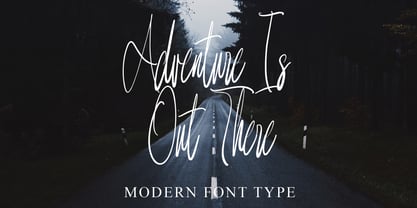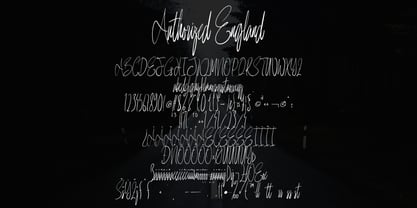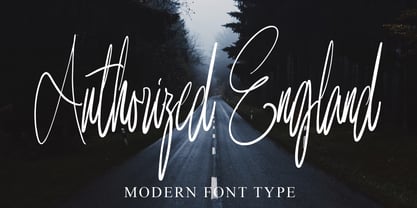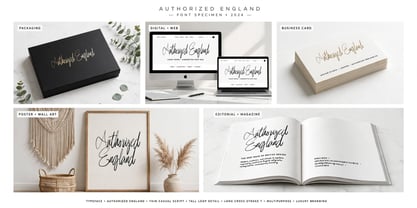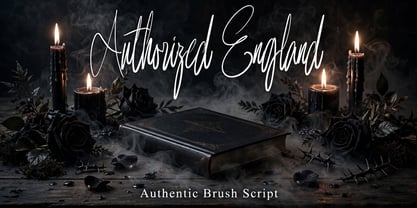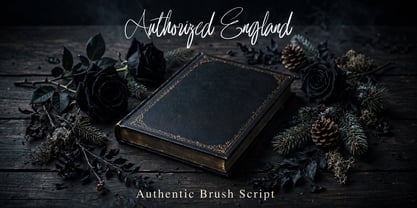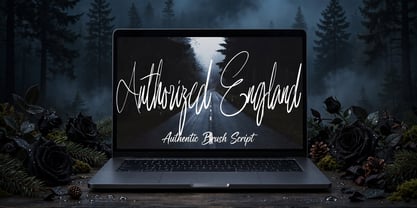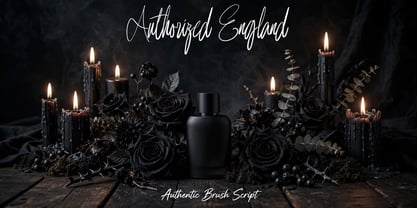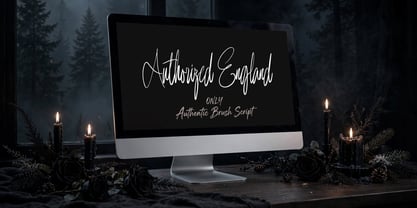
Authorized England
by Ayska
The Authorized England Font Family was designed by Dhoni Trihatmoko and published by Ayska. Authorized England contains 1 styles. More about this family
Encounter the enchanting charisma of Authorized England, an impeccably interwoven typeface merging contemporary crispness with enticing handmade charm. With every swirl and stroke carefully chiseled, Authorized England emanates avant-garde elegance and magnetic appeal, immediately elevating your artful pursuits. This unequaled font shines as a treasure, captivating your blog audience, harmonizing uniqueness into your online magazine, invigorating your invites, or enabling deep expressions on your personalized cards. Seamlessly merging vintage scrapbooking charm with contemporary interior fashion influences, Authorized England is the quintessence of adaptability. Every application of Authorized England infuses your digital canvas with a diverse artistic spirit. Anchored in tradition yet fanning the flames of your creativity, this typeface lays the groundwork for striking and memorable masterpieces. Unleash the flexible power of Authorized England and watch as your creative visions materialize into distinct pieces of art.
Designers: Dhoni Trihatmoko
Foundry: Ayska